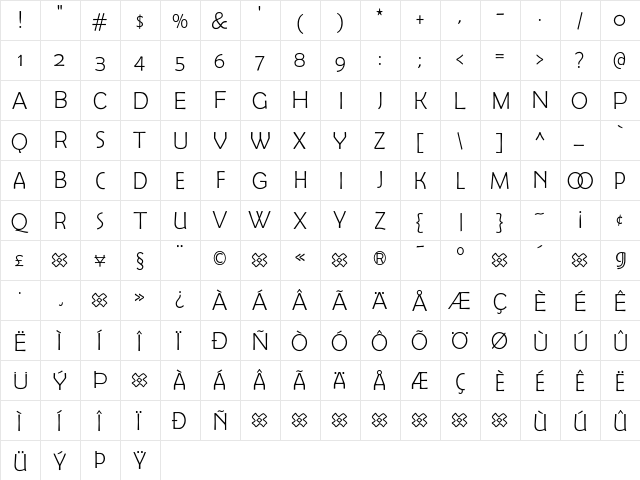
Berlin Sans Light Exp
Design Context for Berlin Sans Typeface
Berlin Sans is a composed and adaptable typeface that performs quietly and consistently across a wide range of design contexts. The delicate stroke weight brings airiness and refinement to layouts.
Pro Tip: Pair Berlin Sans with a font of contrasting weight or personality to build a more expressive typographic hierarchy.